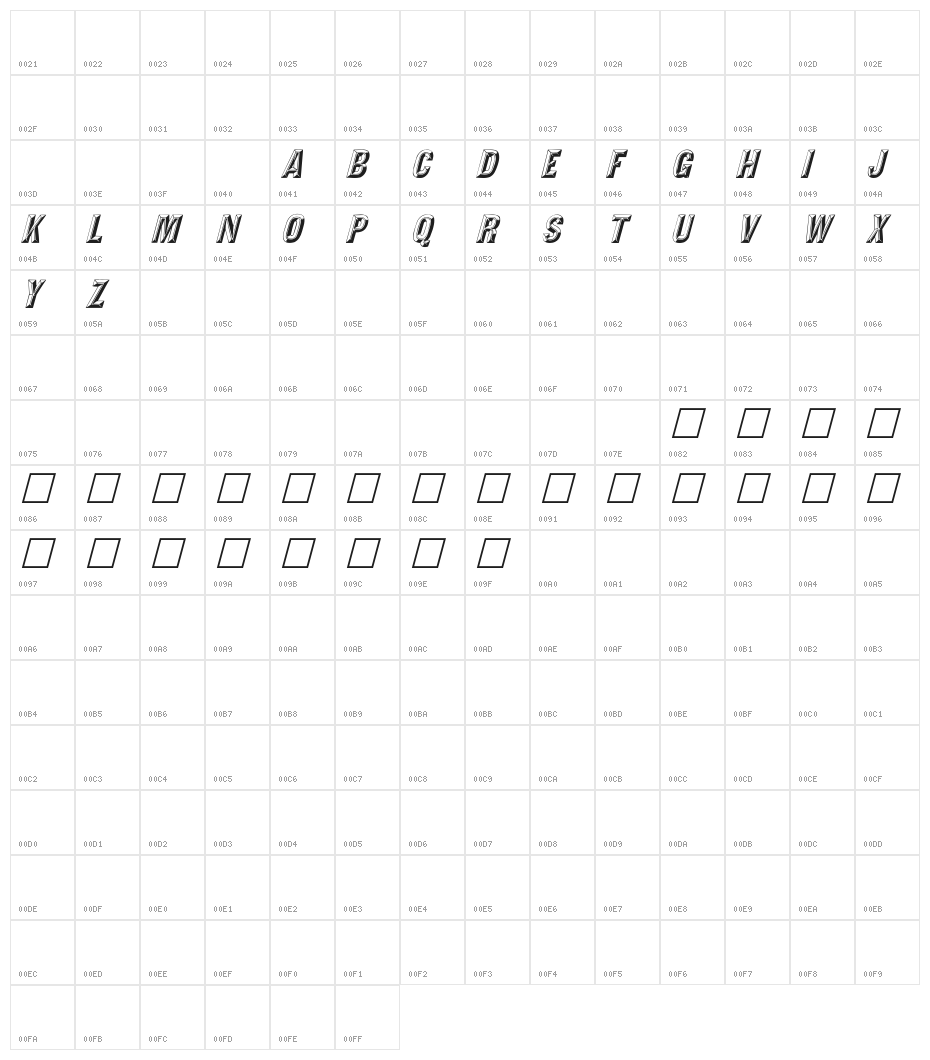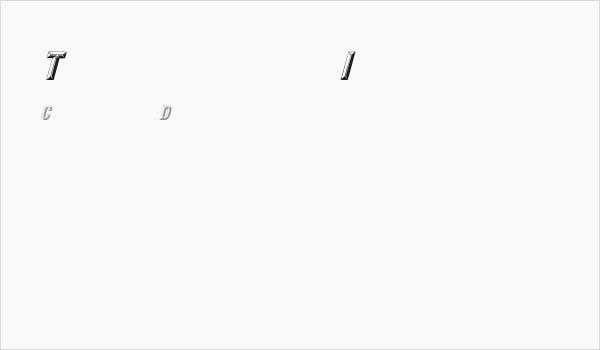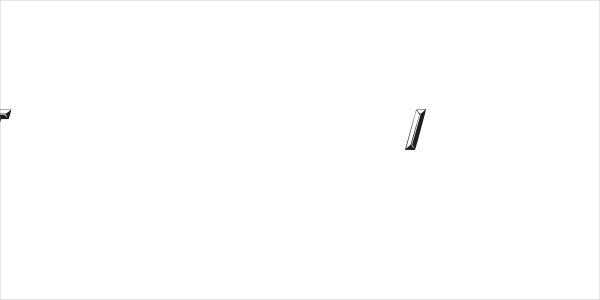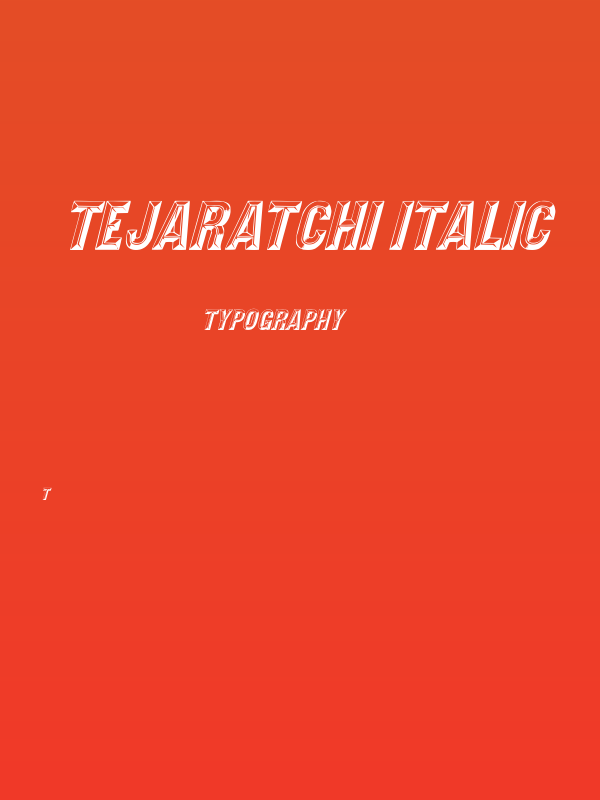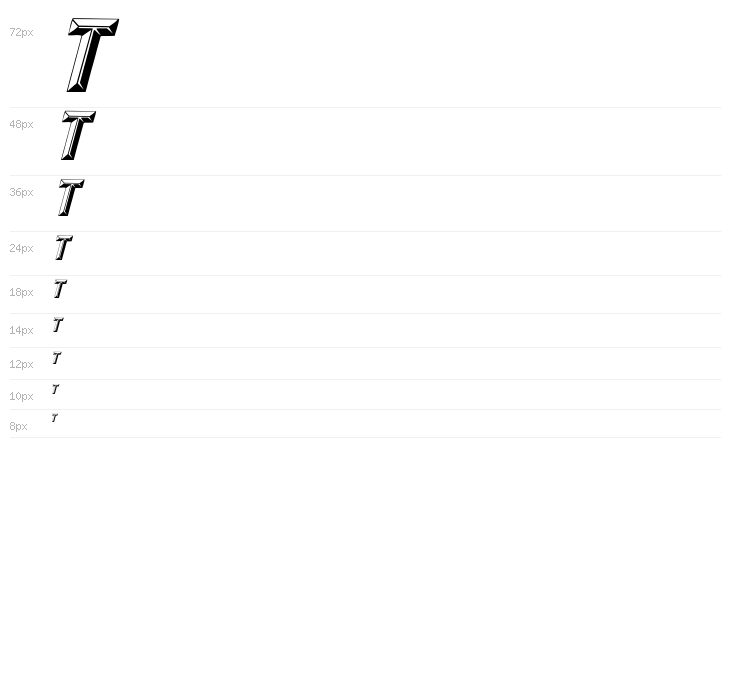
Tejaratchi Italic Font
Tejaratchi Italic Description
This font features a bold, italicized style with a strong 3D effect, characterized by its shadowed and layered appearance. The uppercase letters are designed with a dynamic slant, giving a sense of movement and energy. The strokes are thick and consistent, providing a robust and impactful visual presence. The font's design incorporates sharp angles and clean lines, enhancing its modern and edgy look. The shadowing effect adds depth, making it suitable for eye-catching designs.